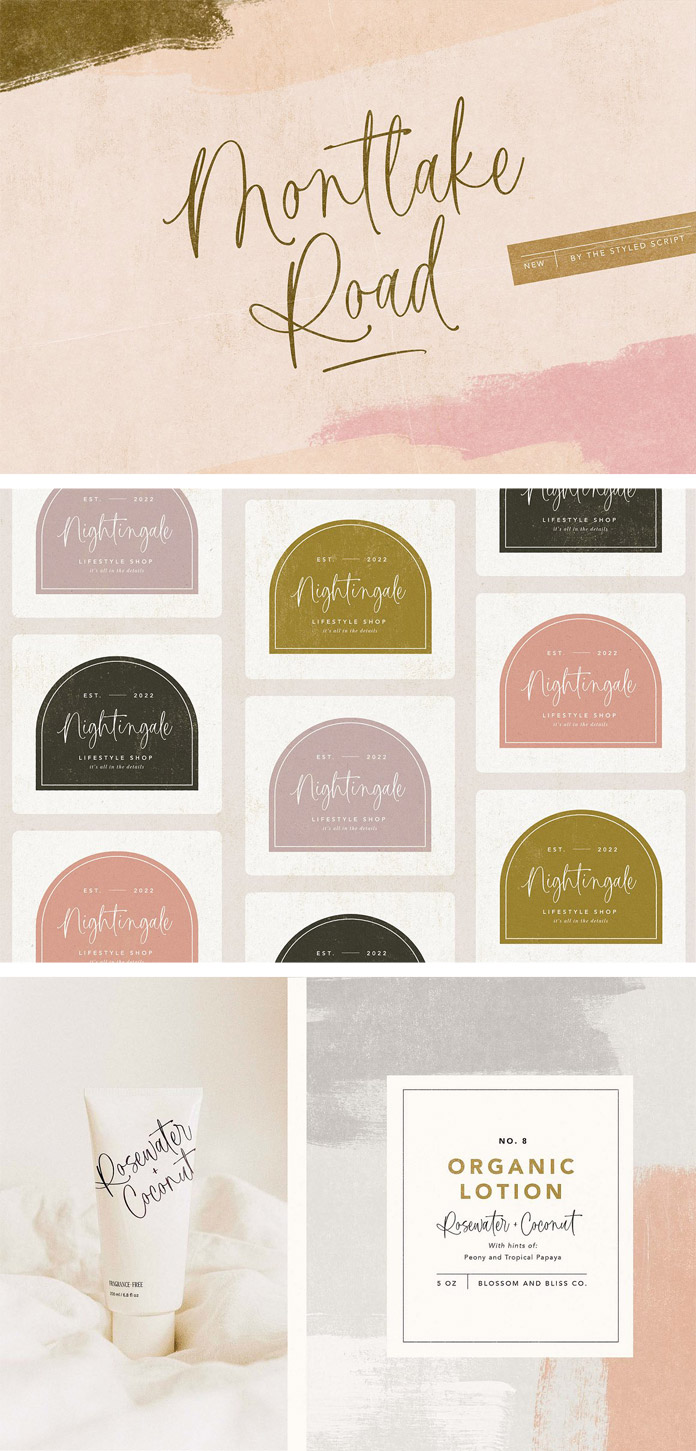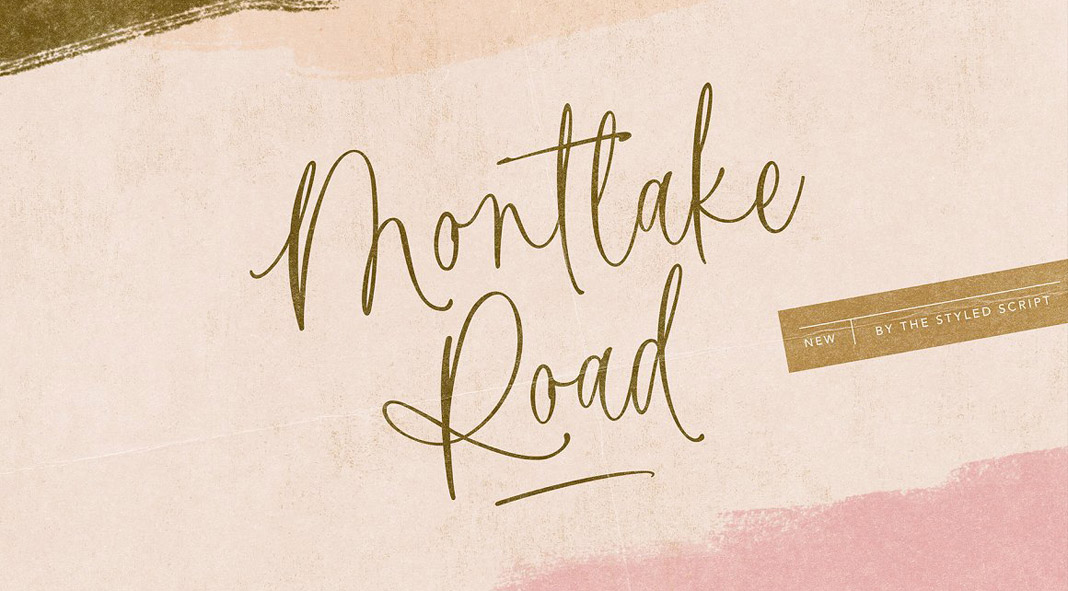
Take a look at this lovely handwritten script font with a romantic and feminine flare.
Published by The Styled Script, the Montlake Road script font is based on an elegant handwritten typeface offering a romantic and feminine style. Montlake Road comes with plenty of OpenType ligatures to give your design projects a more natural handwritten look. Make sure your ligature option is turned on in your OpenType panel. To do so, you need to use professional software such as Adobe InDesign, Photoshop, etc. You can also add elegant swashes to all lowercase letters. In addition, the Montlake Road script font includes several alternates. This font is ideal for handwritten logos, websites, labels, invitations, or branding projects. Just click on the following link to learn more about this elegant script font.